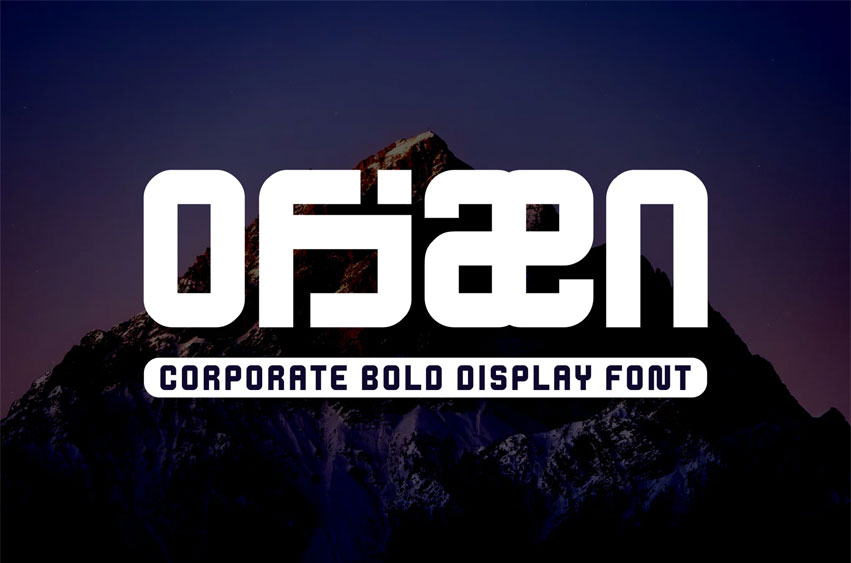
Ofjaen Font Ligature Display Font is a bold and authentic display font.
The font is suitable for any branding project like logo, esport, and many more. outstanding in a wide range of contexts.